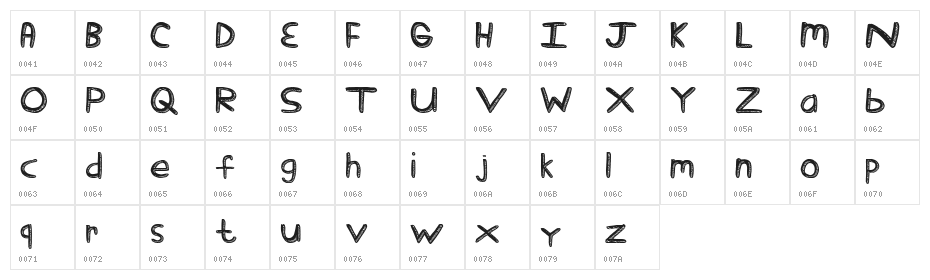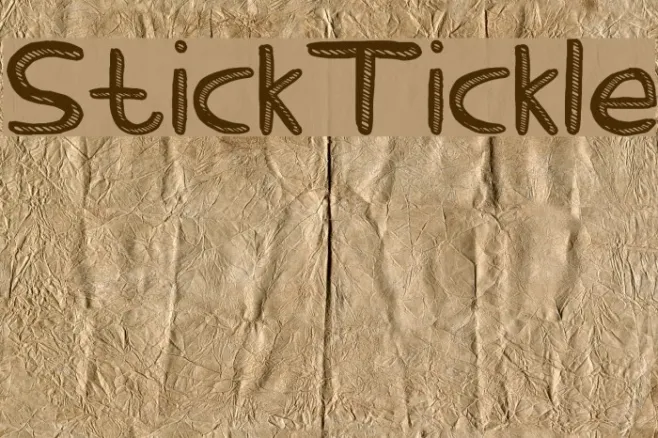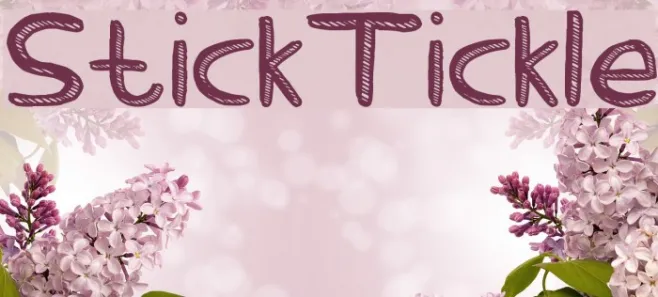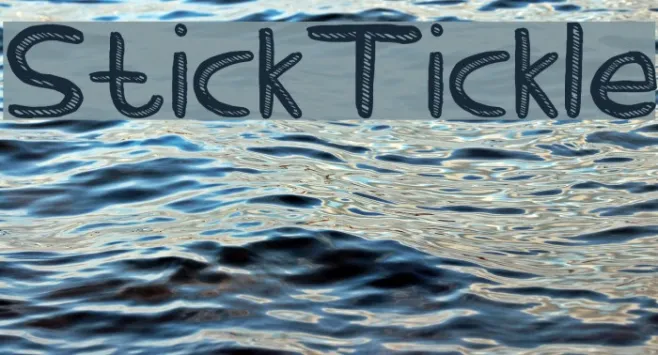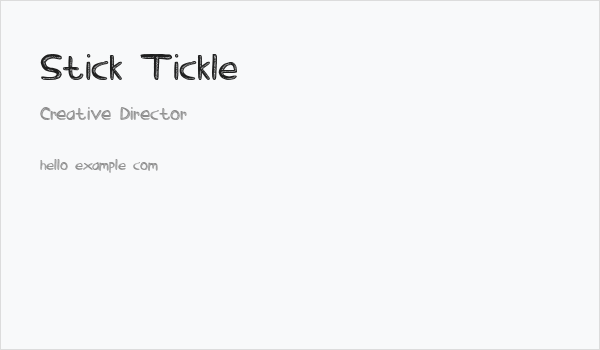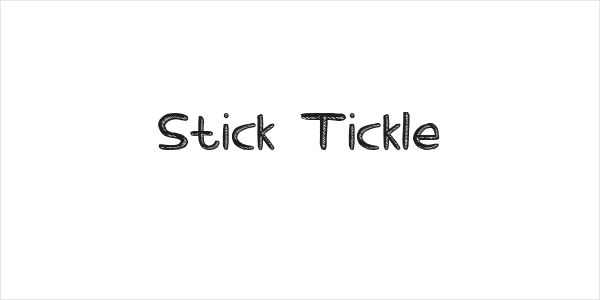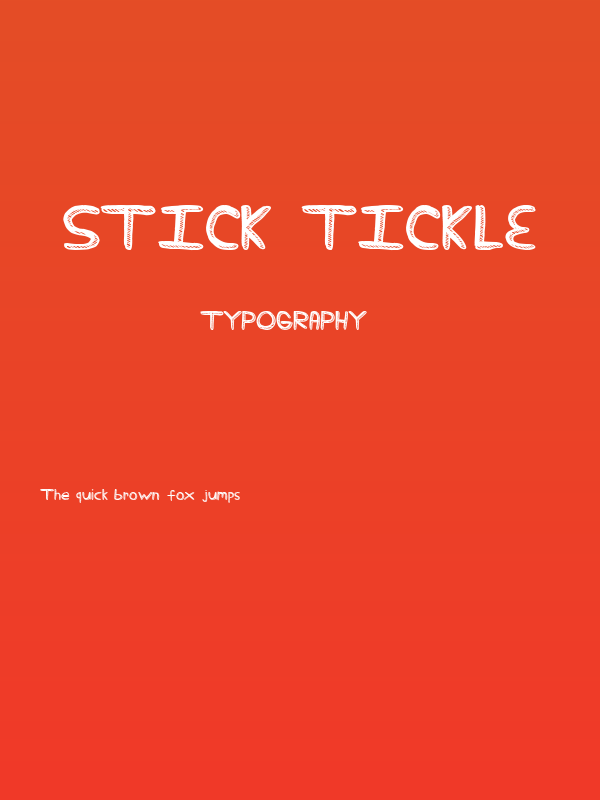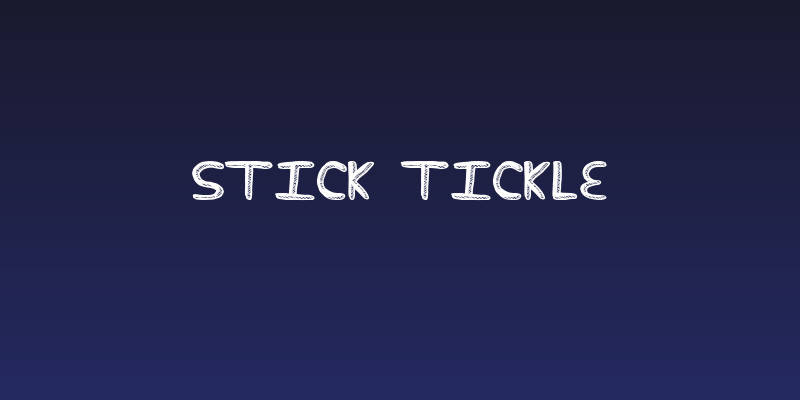
Stick Tickle Font
Stick Tickle Description
This playful and whimsical font features a hand-drawn style with a textured, sketch-like appearance. The characters are bold and rounded, giving them a friendly and approachable feel. Each letter is filled with diagonal lines, adding a unique, artistic touch that makes the font stand out. The overall design is casual and fun, making it suitable for creative and informal projects. The font maintains consistency in its character shapes, ensuring readability while still offering a distinct personality.